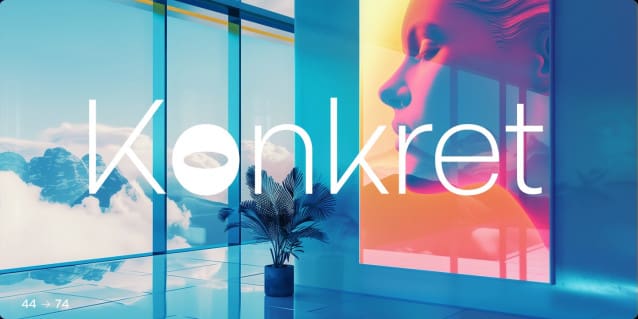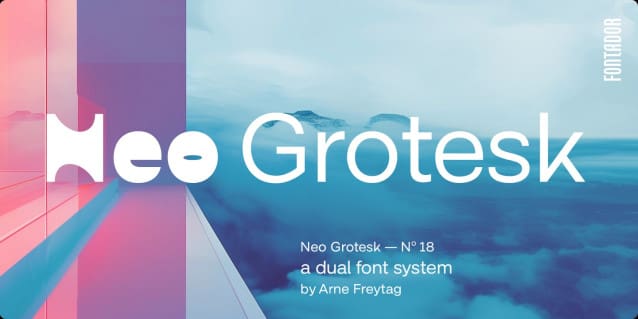
Neo Grotesk Font Family
Neo Grotesk Font Family is an attempt to create a dual typeface system in different weights. The basis is a modern, factual sans serif in the style of a New Grotesque, while the second typeface variant builds on the basic form of the first and varies the shapes with curves, similar to a “blur effect”. The combination of these two basic types opens up endless design possibilities in a futuristic style to meet the different requirements of design projects.
Neo Grotesk is available in two versions: either as a classic dual font family with 18 different weights or as a variable font.
As a tool for visionary creatives in areas such as branding, editorial and fashion design, Neo Grotesk may provide a platform to push conventional boundaries and develop innovative, forward-thinking design solutions.